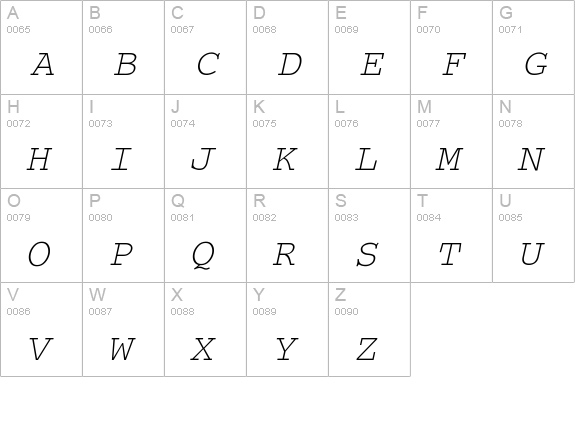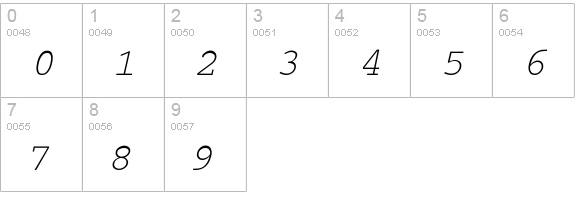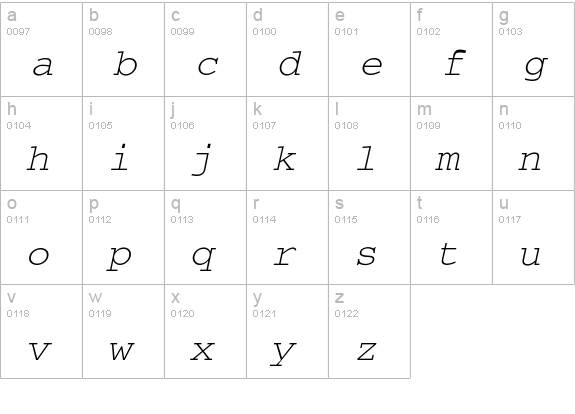
Bouvian-Oblique Font Details
Bouvian-Oblique is a distinctive, italic variant in the Bouvian typeface family \xE2\x80\x94 well suited to design and typography projects.
Introducing Bouvian-Oblique font, a sleek and modern typeface that embodies sophistication and elegance. With its unique slanted design, Bouvian-Oblique adds a touch of flair to any project it graces. Perfect for titles, headings, and branding materials, this font stands out with its clean lines and stylish curves. What's even better is that Bouvian-Oblique font is available for free download at FontsMarket.com. So whether you're working on a personal project or a professional design, you can easily access this versatile font and elevate your work to the next level. Don't miss out on the opportunity to enhance your designs with the chic and contemporary Bouvian-Oblique font – download it today and let your creativity shine!